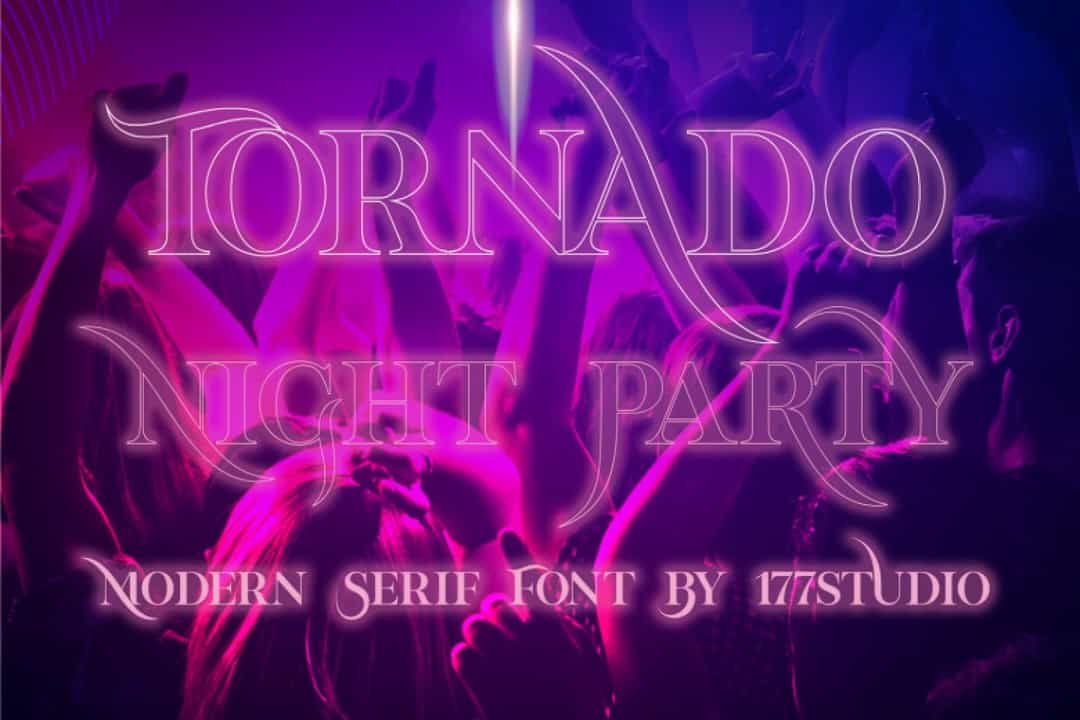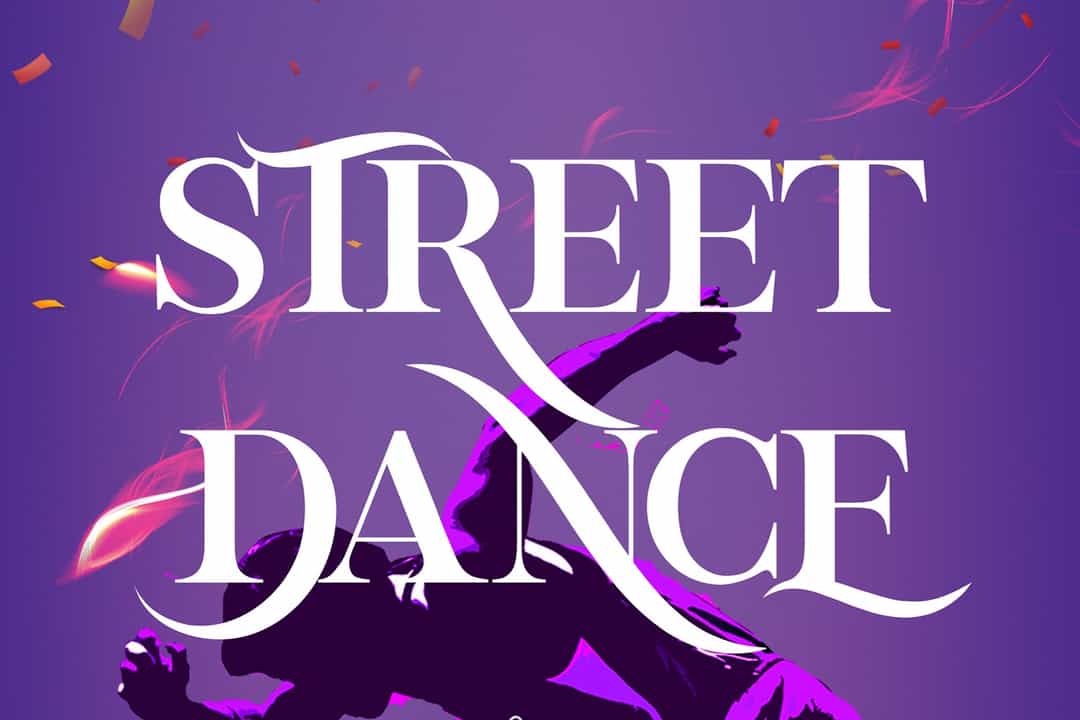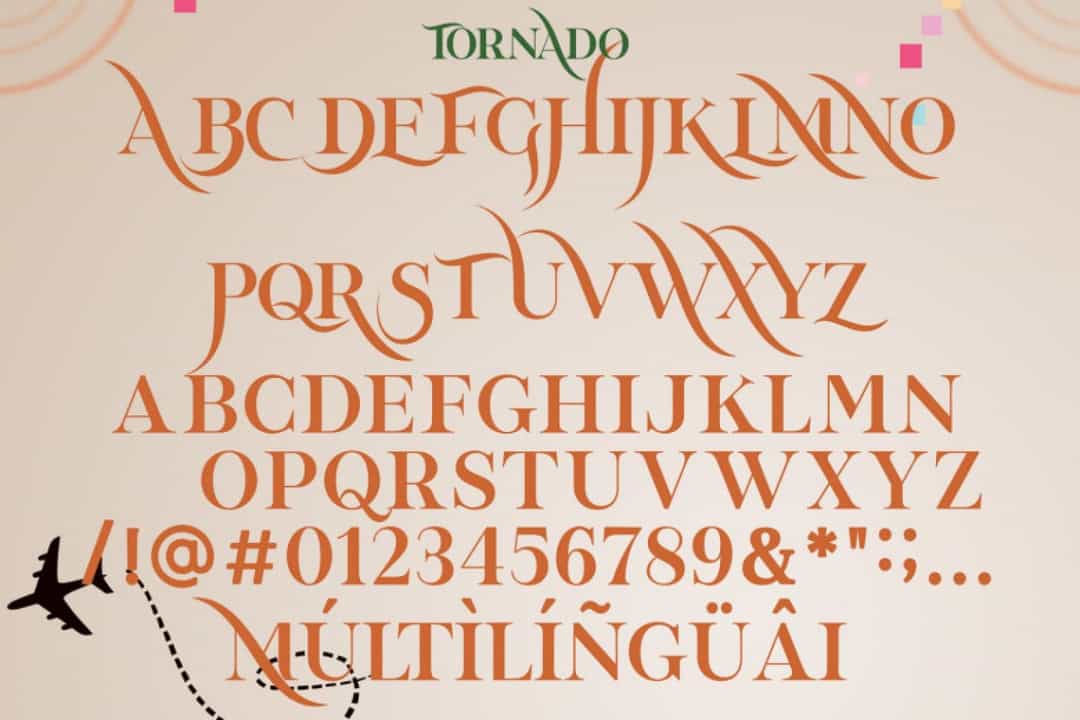
Tornado is a conventional serif font with some modern twists in the curvature and cut-ins, thus making this one of the most famous cap fonts around. The font is applicable for Wordmark Logos, Mastheads, and Pull Quotes, besides Monograms that have both male and female traits.